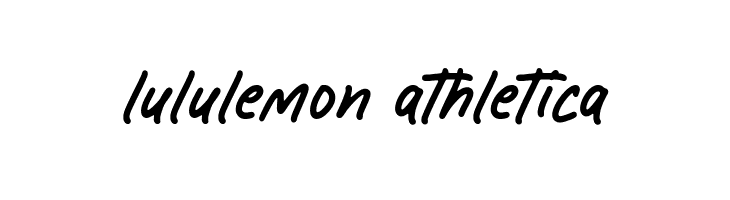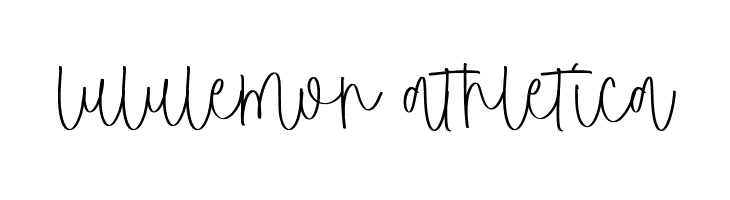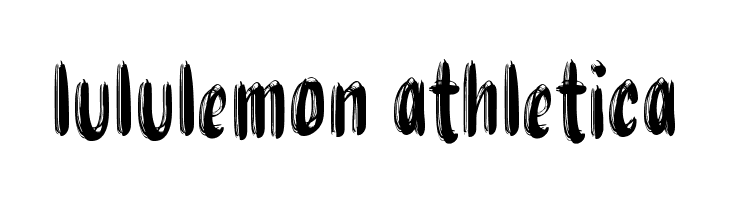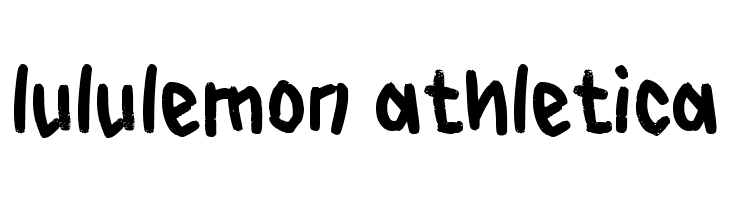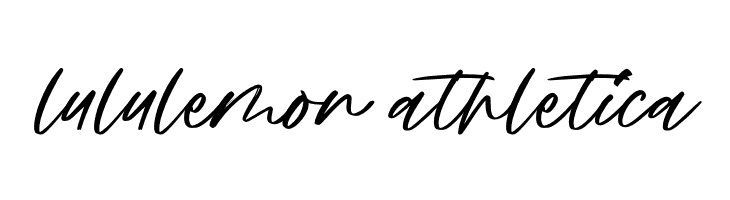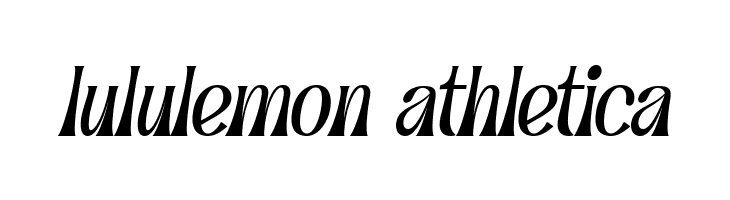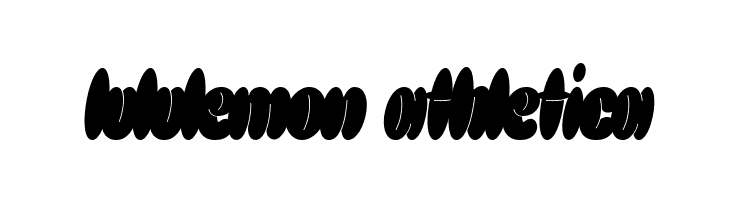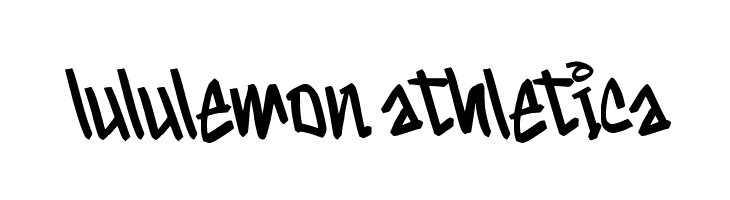
A bold, graffiti-inspired font with dynamic, edgy characters.
A playful handwritten font with fluid, organic strokes and a casual vibe.
A casual handwritten font with smooth, flowing curves and a friendly appearance.
Elegant italic font with smooth curves and a dynamic style.
A dynamic, cursive script font with a fluid, handwritten style.
A playful, casual handwritten font with fluid, connected letterforms.
A bold, geometric font with rounded edges and a modern aesthetic.
A bold, playful font with thick, rounded characters and high contrast, ideal for creative projects.
A bold, hand-drawn font with dynamic, brush-like strokes.
A bold, hand-drawn font with an energetic and playful style.